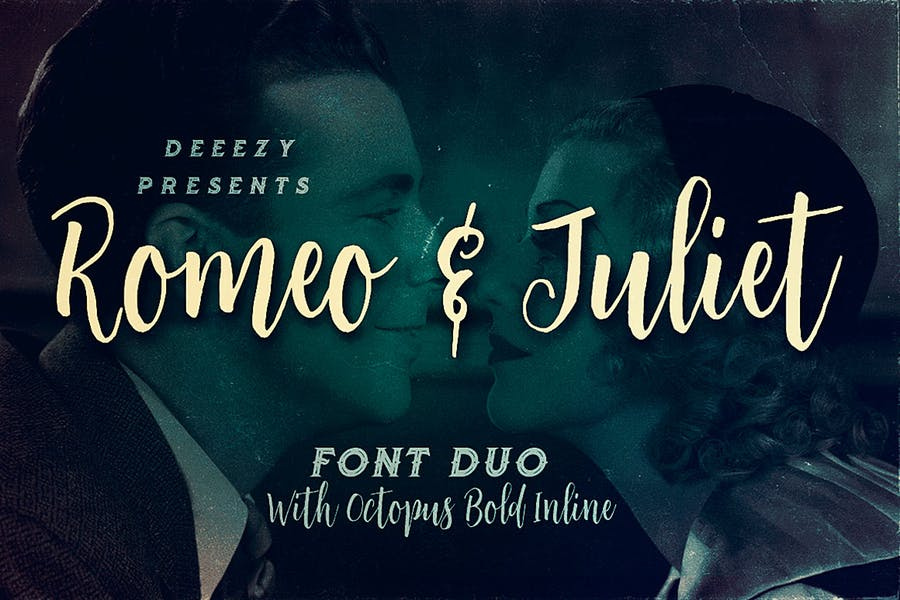
Romeo & Juliet Font Duo
Romeo & Juliet Font Duo is perfect for romantic wedding invitations, couple's branding projects, love story book covers, Valentine's Day campaigns, romantic restaurant menus, anniversary celebration materials, engagement party stationery, romantic comedy movie posters, dating app branding, luxury romance novel covers, intimate event signage, and passionate brand storytelling.
Romeo & Juliet Font Duo is exciting because it masterfully captures the timeless romance and passionate drama of Shakespeare's legendary love story through perfectly paired complementary typefaces that work together like star-crossed lovers, creating harmonious typographic relationships that speak directly to the heart and evoke deep emotional connections.
The Romeo & Juliet Font Duo family includes romantic variations: Romeo Regular, Romeo Bold, Juliet Script, Juliet Ornate, Decorative flourishes, and Heart-inspired ornaments, providing designers with a complete romantic typography system to craft love stories that resonate with audiences seeking authentic emotional expression.
The font duo's carefully crafted relationship mirrors the classic tale itself - Romeo's strong, masculine letterforms provide stability and strength, while Juliet's flowing, feminine script adds grace and elegance. Together, they create perfect typographic harmony that speaks to the universal language of love and human connection.
Romeo & Juliet Font Duo excels in creating memorable brand experiences for businesses centered around love, relationships, and emotional connections. Its romantic appeal transforms ordinary communications into heartfelt messages that resonate deeply with audiences seeking authentic expressions of love and commitment.
Professional designers appreciate how Romeo & Juliet Font Duo offers incredible versatility in romantic design applications. The complementary styles work beautifully together or independently, allowing for sophisticated typographic hierarchies that guide readers through emotional narratives with grace and elegance.
This remarkable font pairing brings instant warmth and intimacy to any project touching on matters of the heart. From boutique wedding planners to luxury chocolate brands, Romeo & Juliet Font Duo creates lasting impressions that celebrate the beauty and power of love in all its forms.